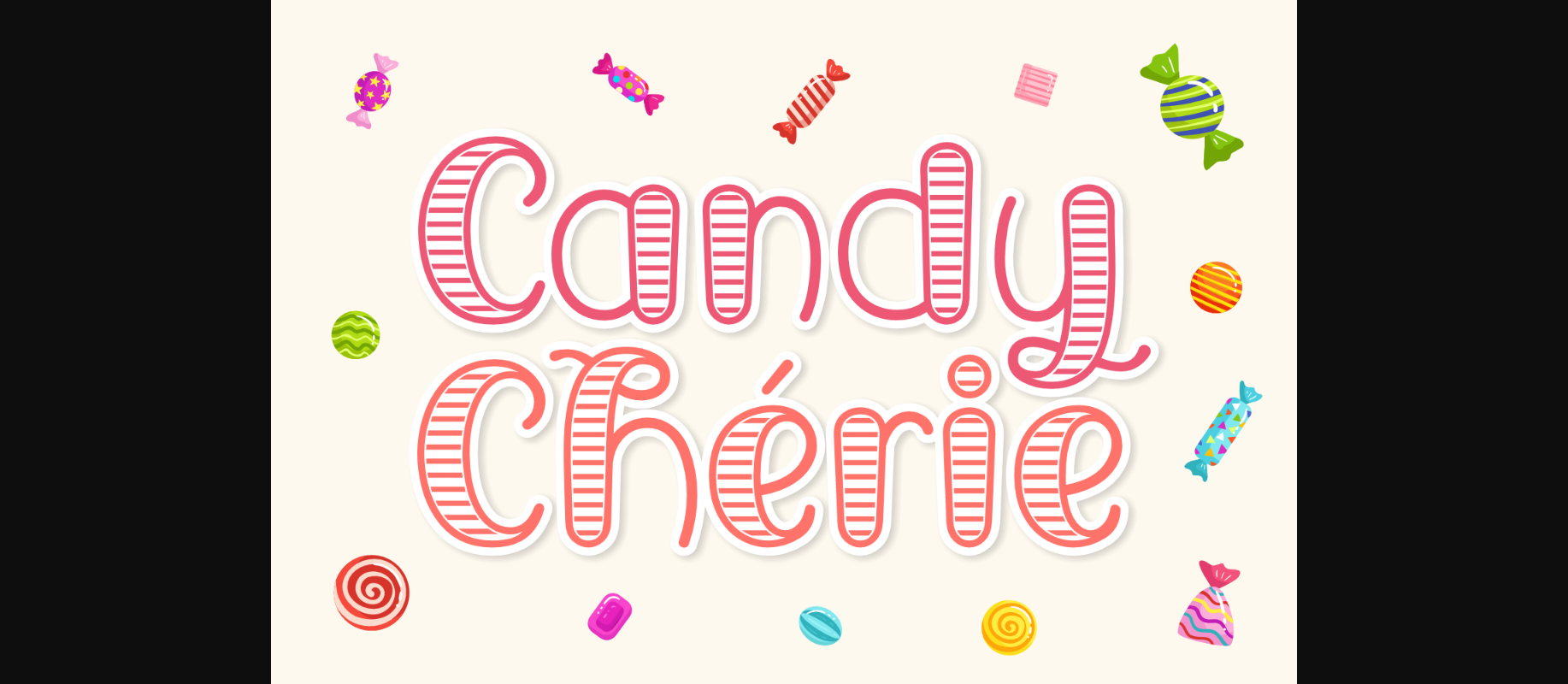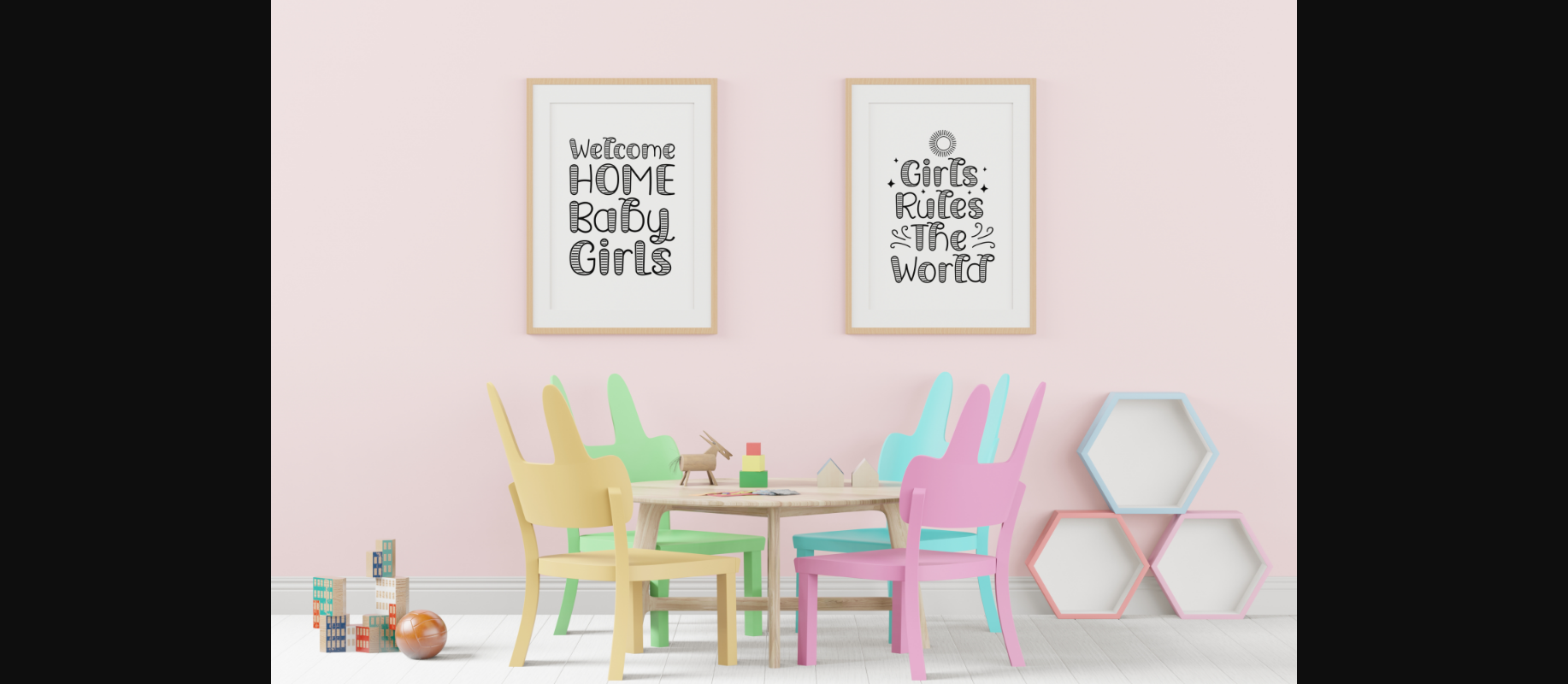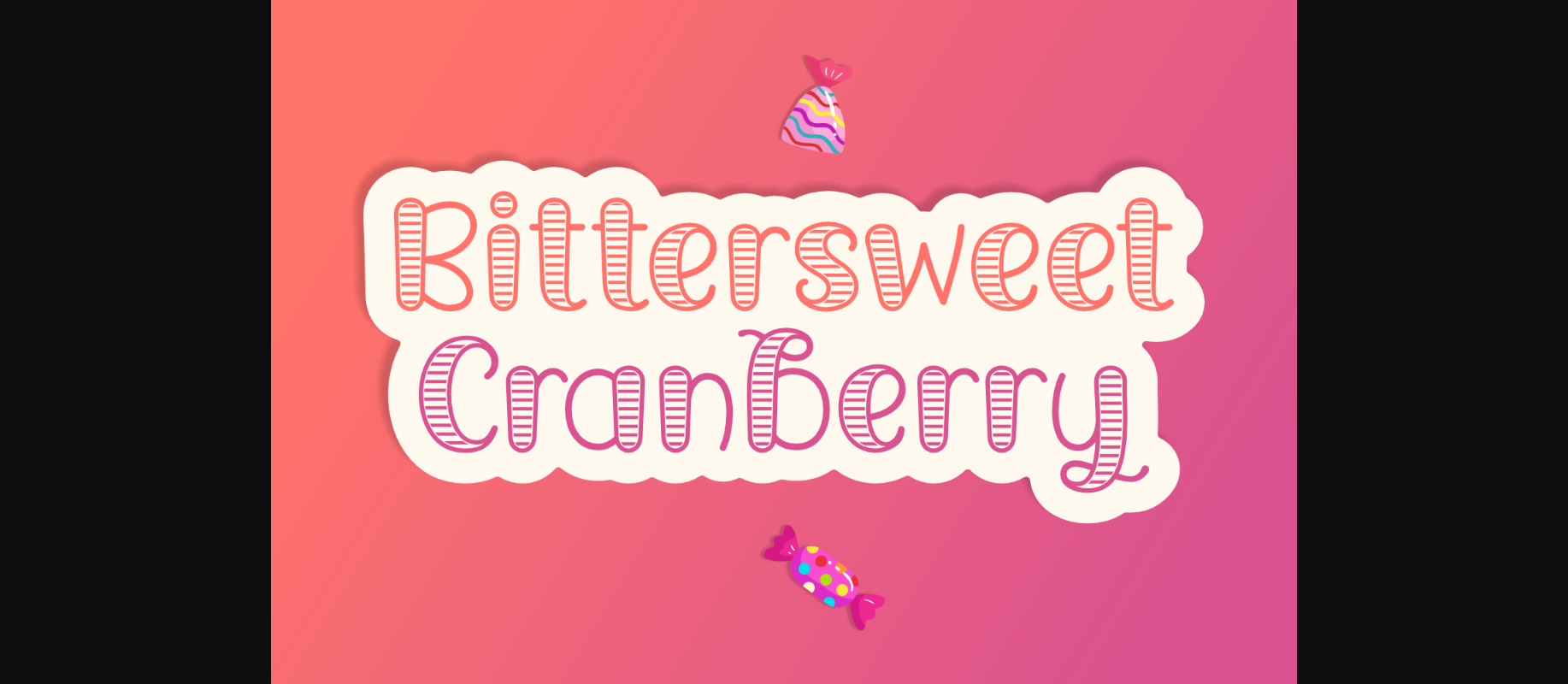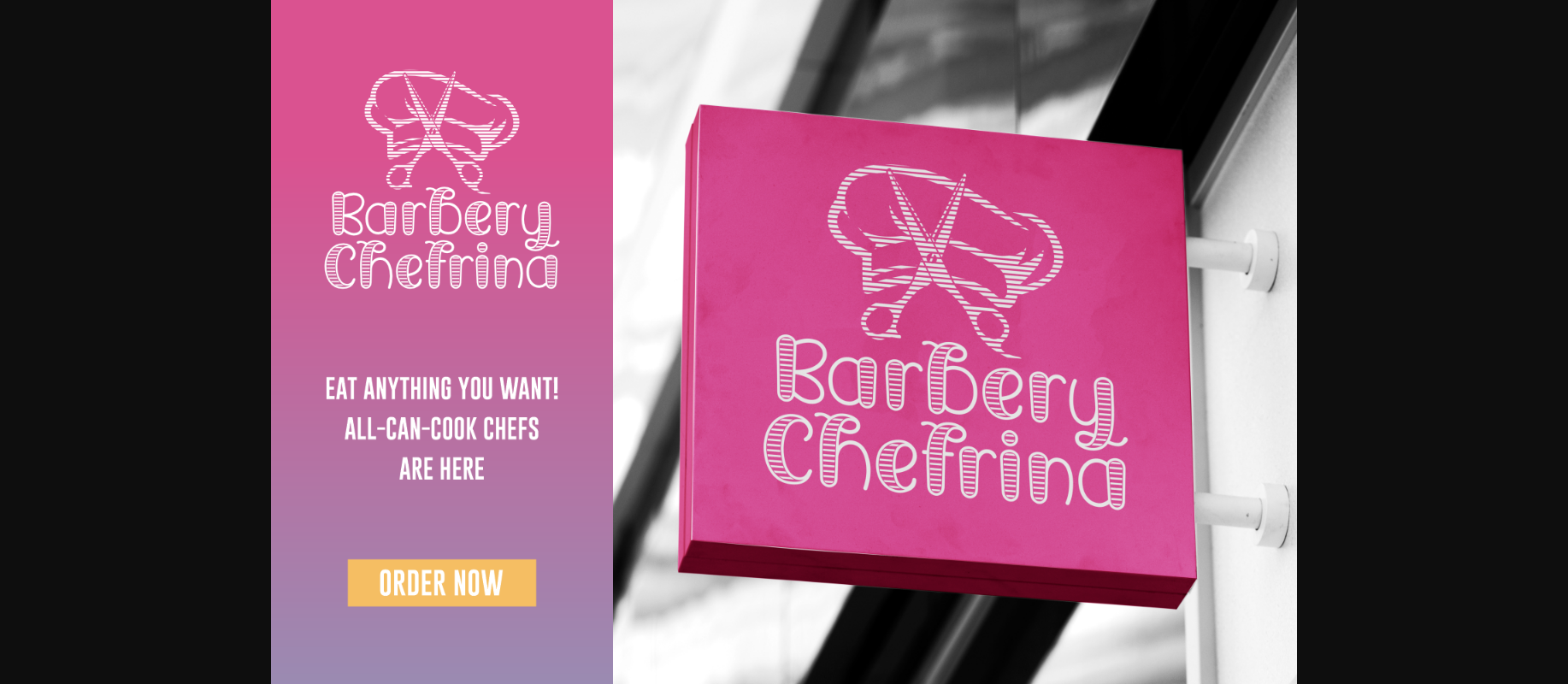
Candy Chérie Font
About Candy Chérie Font
Candy Chérie is a unique and creative decorative font. Inspired by candies, these characters feature stripes and rounded thin lines. You can use this playful font for websites, art prints, wall art, frames, identity branding, logos, hairstyles, and fashion designs.